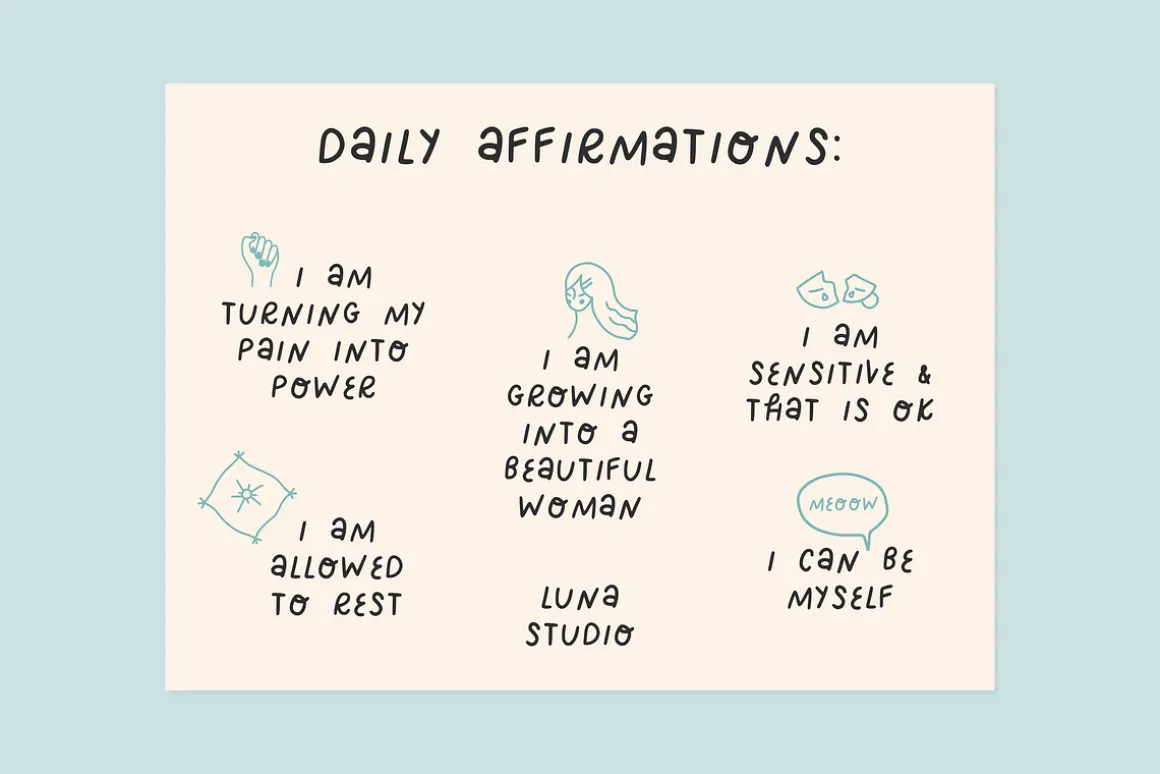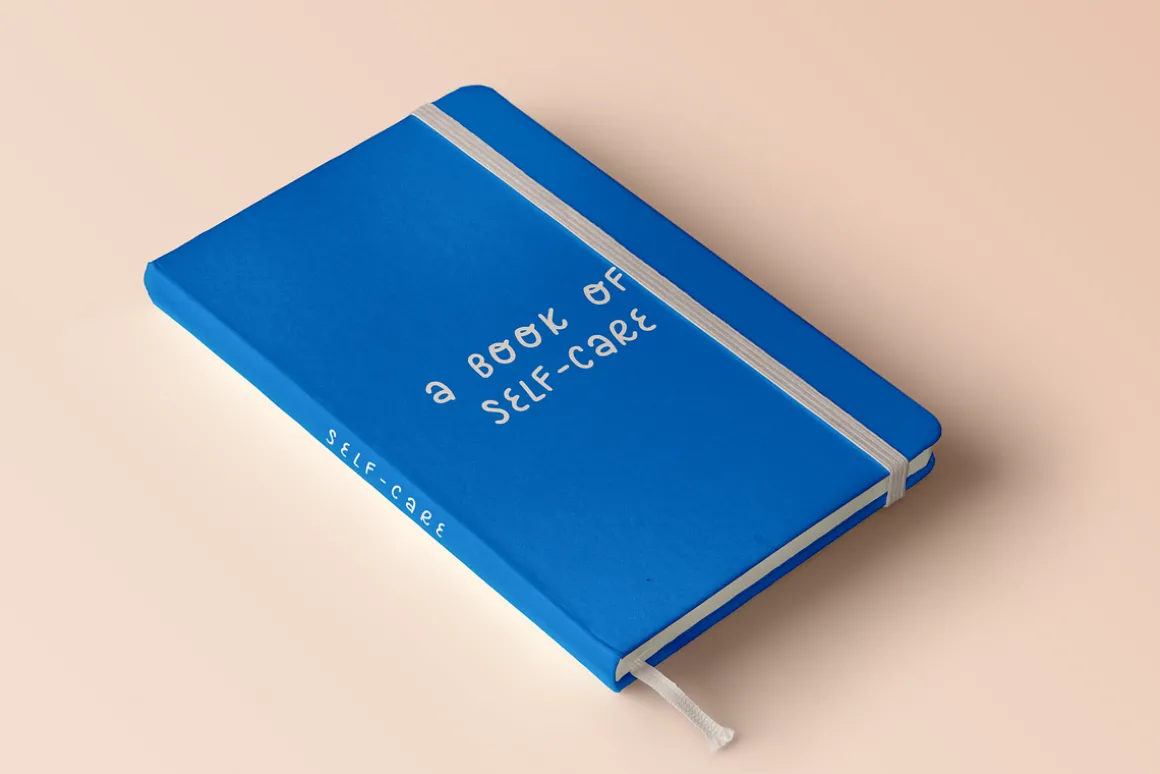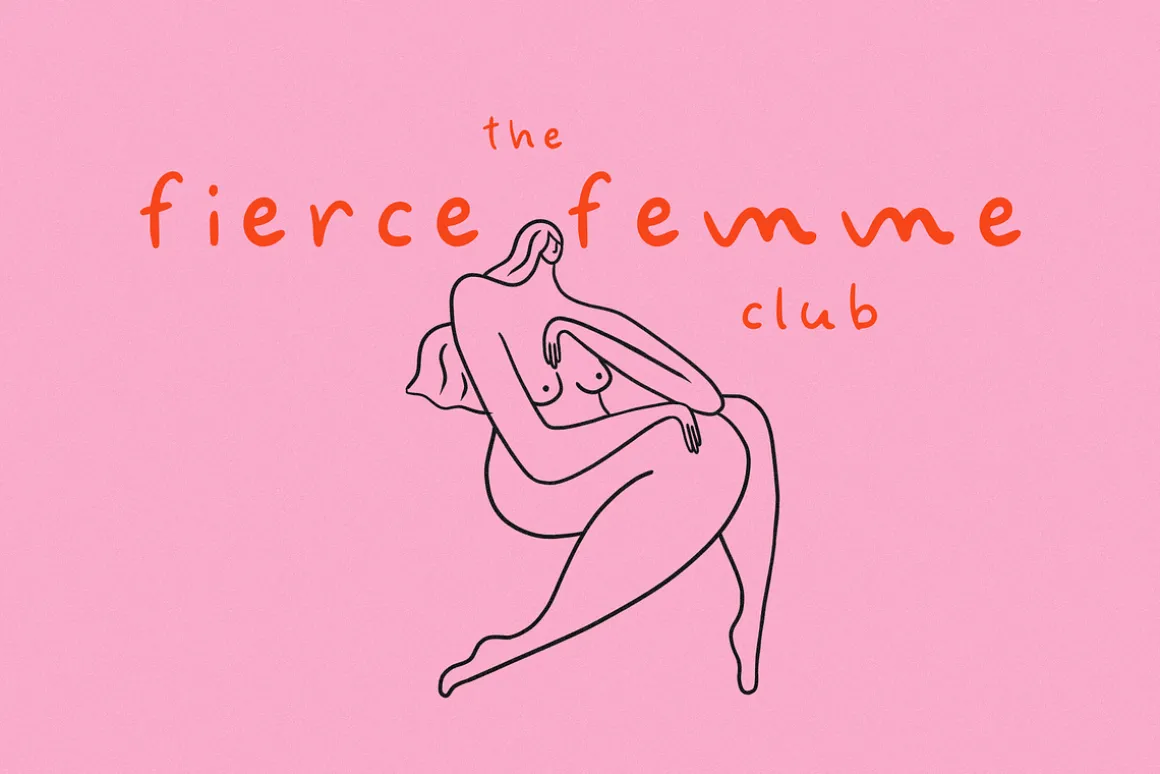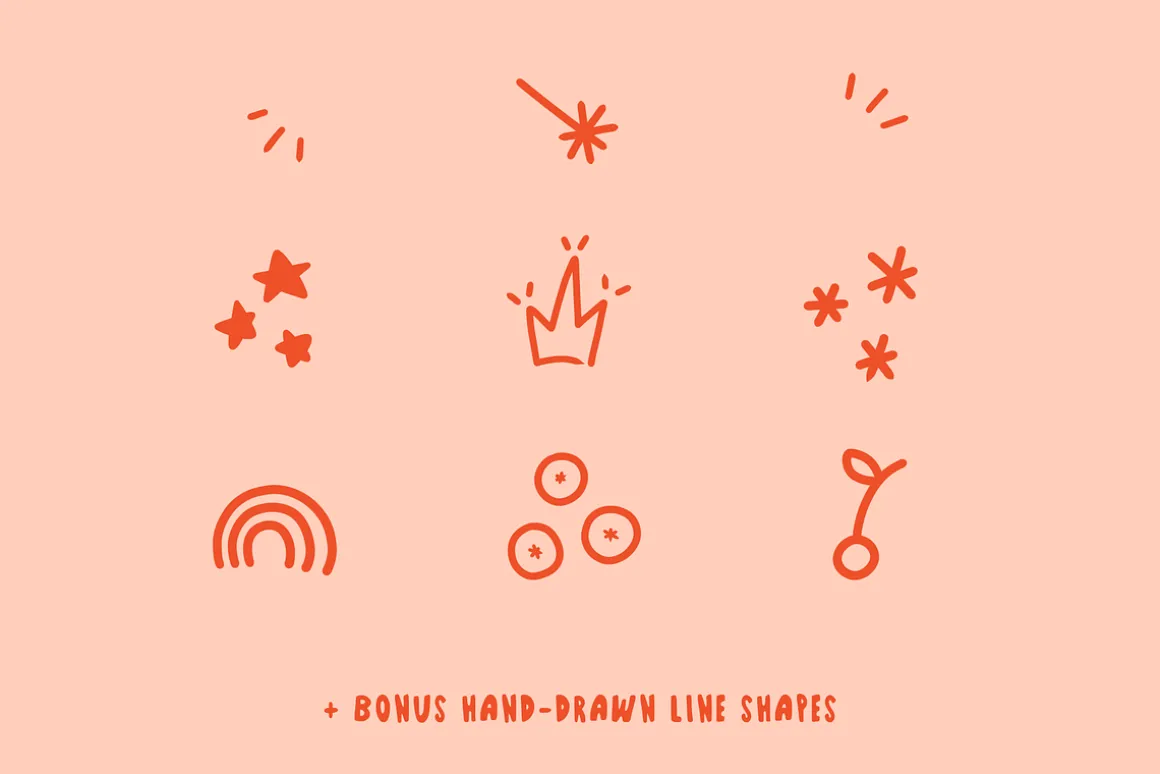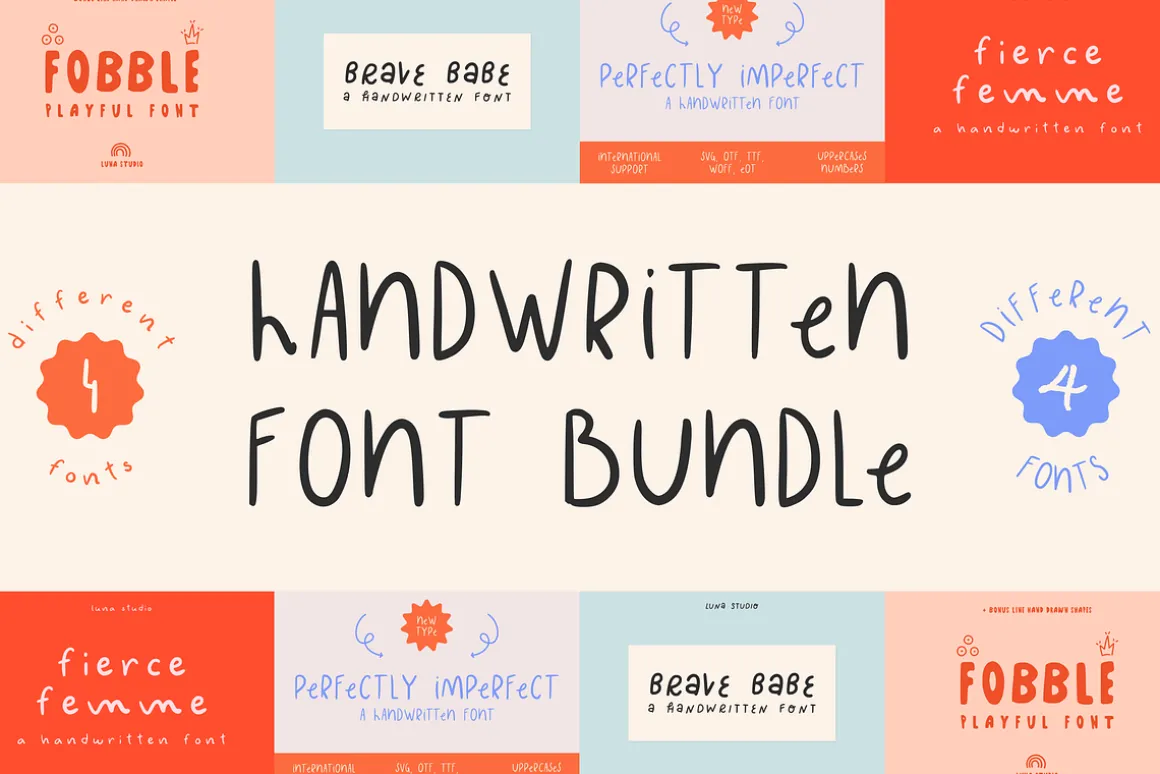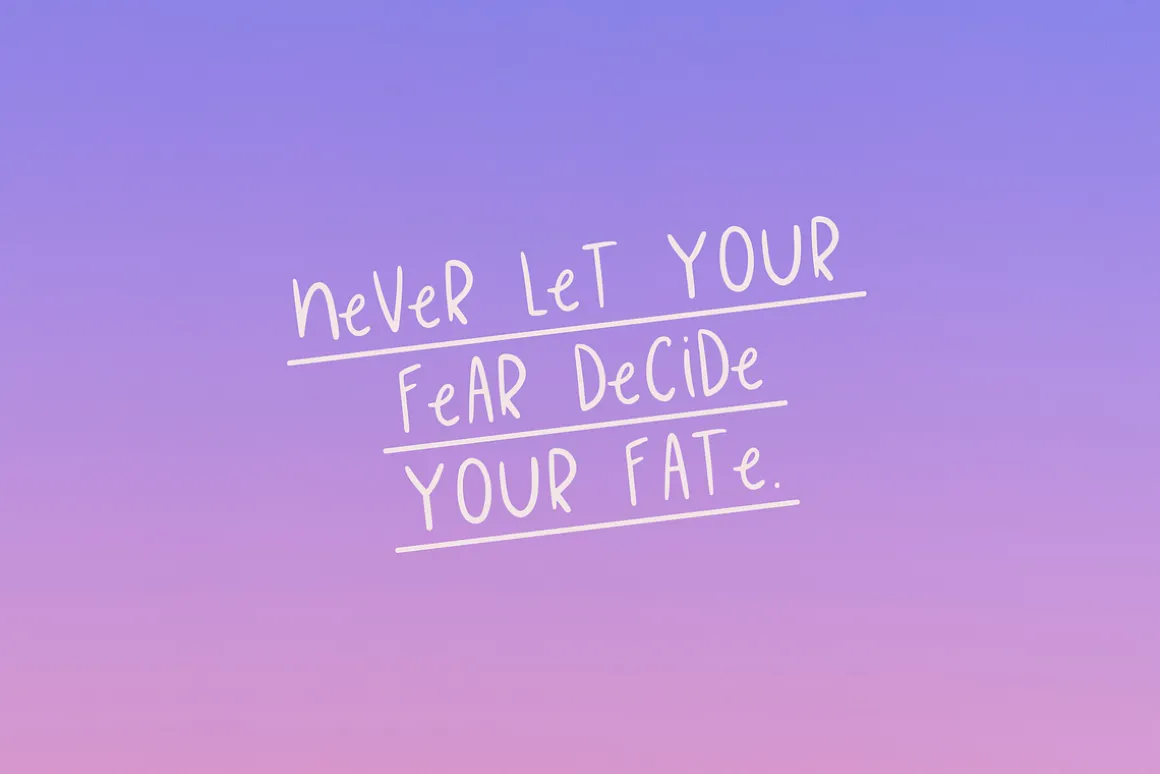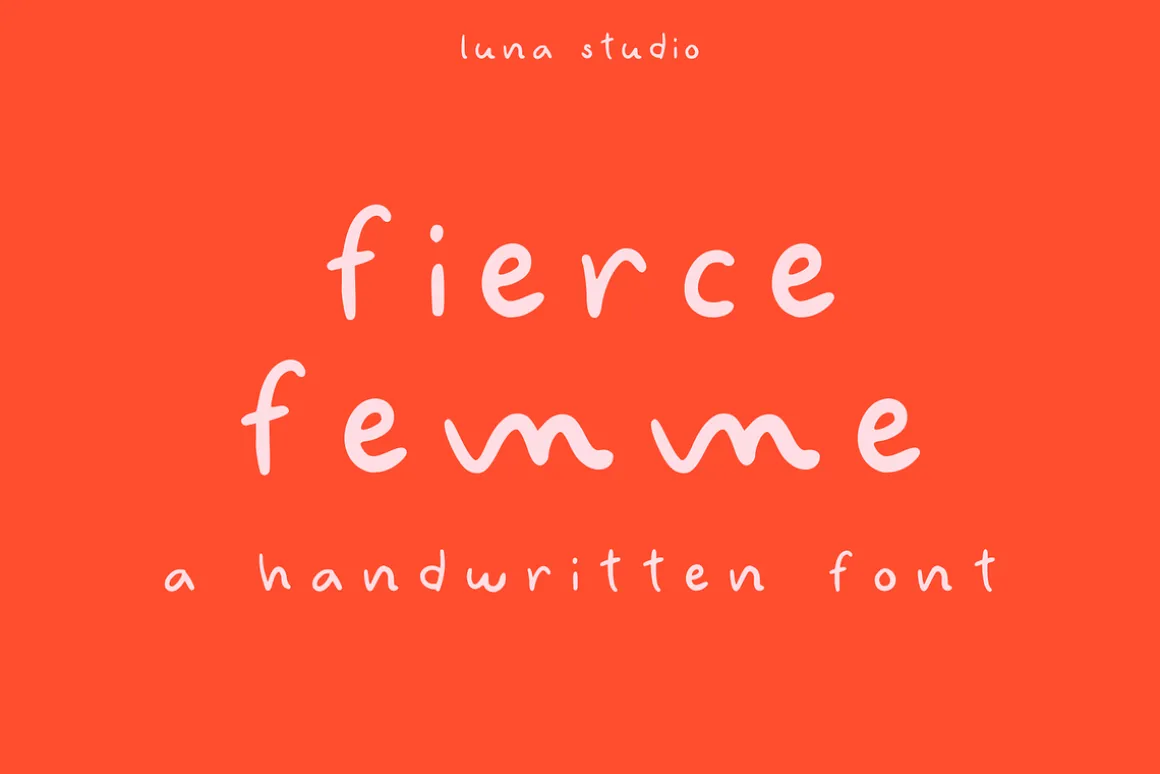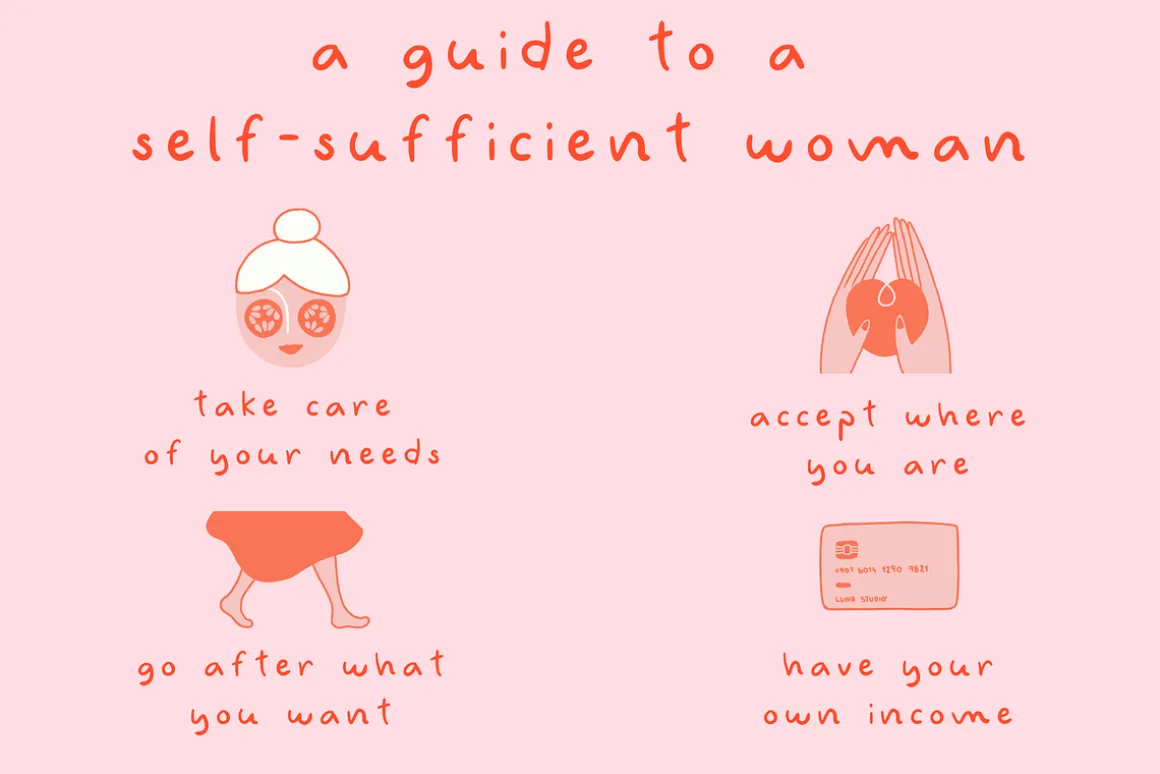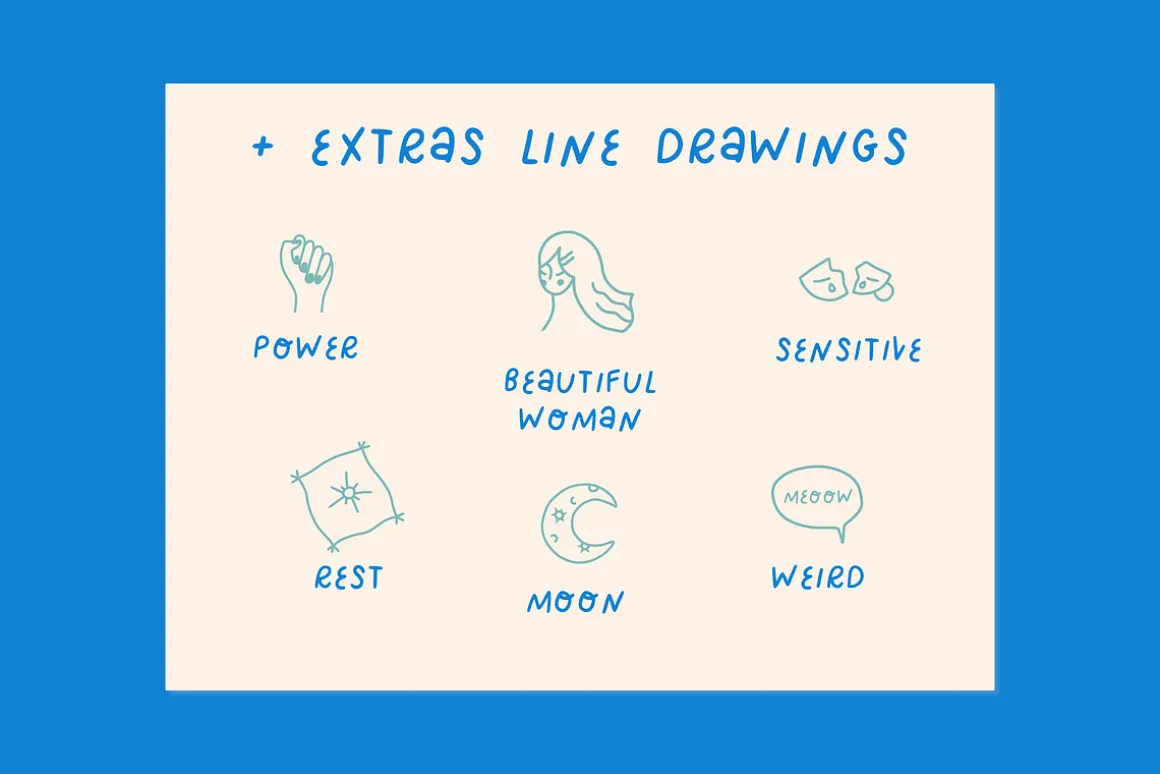
The cute handwritten font bundle!
Brave Babe Font
Fierce Femme Font
Perfectly Imperfect Font
Fobble Font
They are perfect for:
- Quotes
- Illustrations
- Branding
- Greeting cards
- Logo
- Pinterest & Instagram